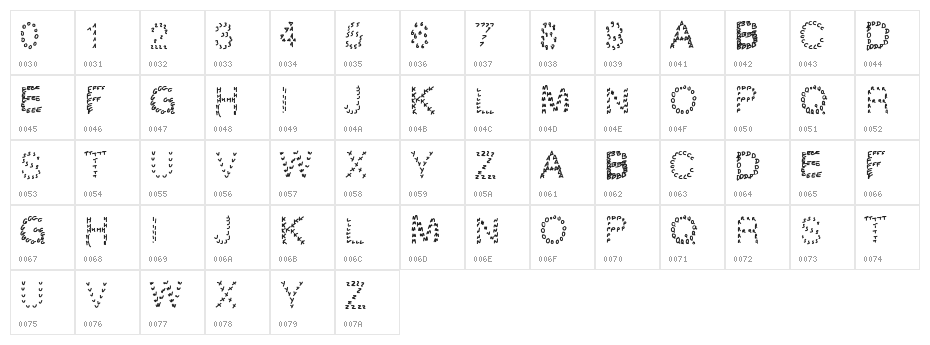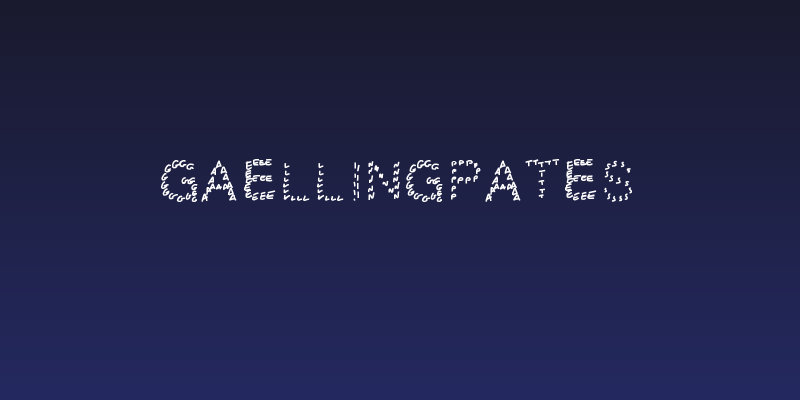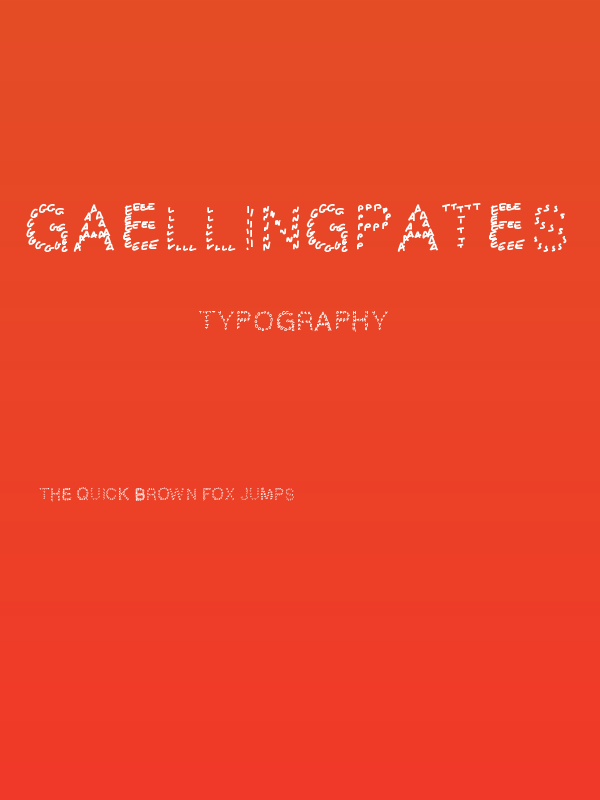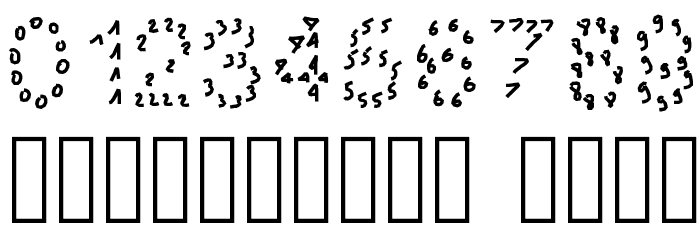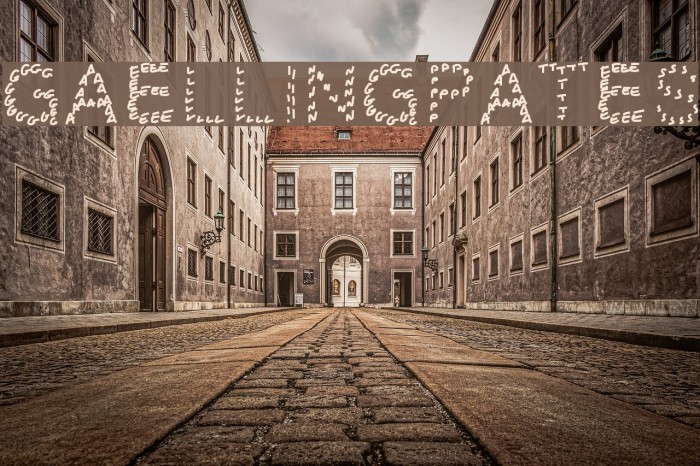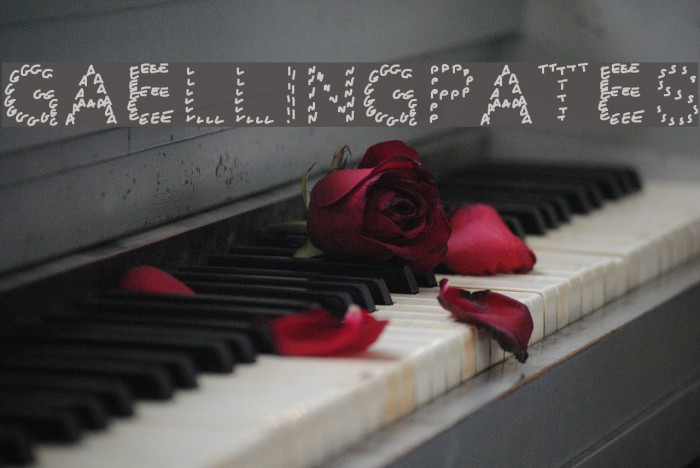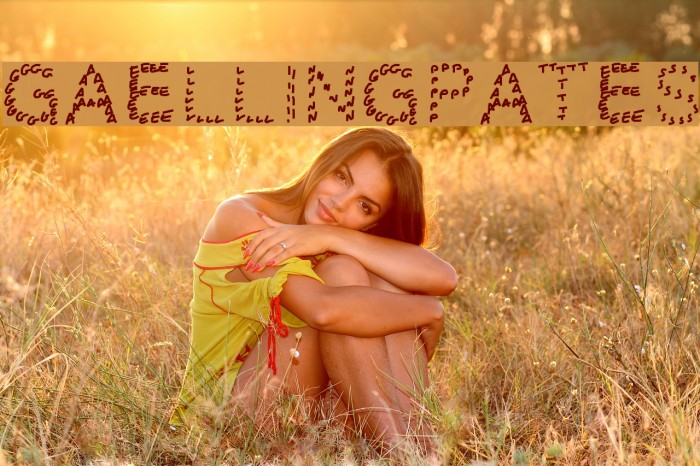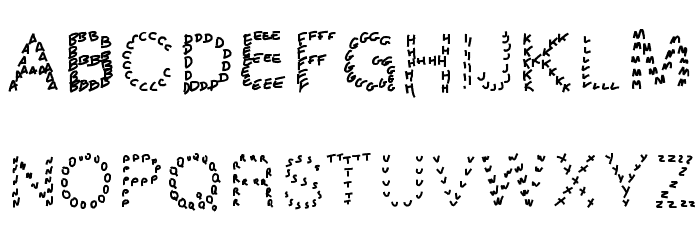
Gaellingpates Font
Gaellingpates Description
This font features a playful and whimsical design, characterized by its use of small, repeating shapes to form each letter and number. The uppercase and lowercase letters, as well as the numerals, are constructed with a series of dots, loops, and lines that create a textured appearance. The font has a hand-drawn quality, giving it a unique and artistic flair. The characters are evenly spaced, maintaining a consistent rhythm throughout the text. This font is ideal for projects that require a fun and informal touch, such as children's books, greeting cards, or creative posters.
| Overall Style | Whimsical, Artistic |
| Use Case | Headlines, Decorative text |
| Proposed Projects | Children's books, greeting cards, creative posters, playful branding. |